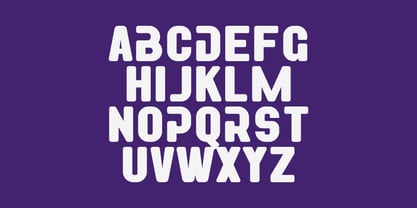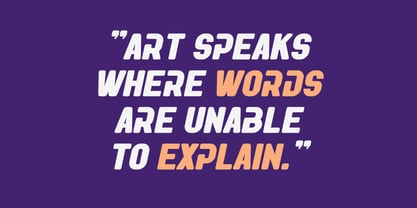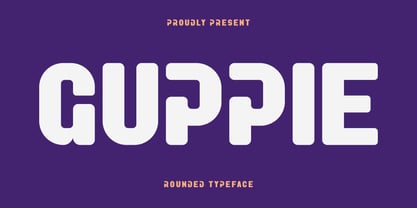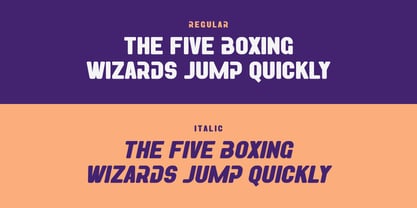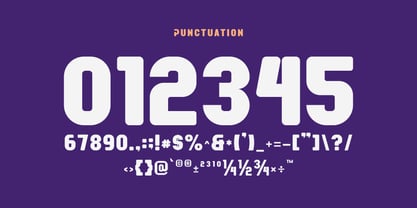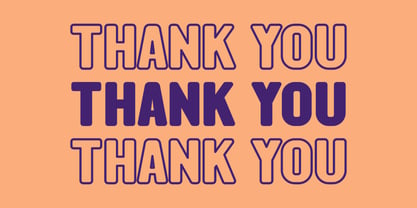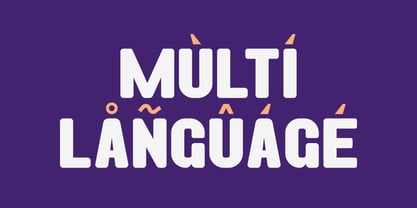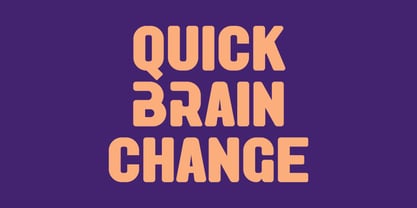
Guppie
by Artiveko
The Guppie Font Family was designed by Iwan Alwan and published by Artiveko. Guppie contains 2 styles and family package options. More about this family
Guppie is a rounded sans serif font full of friendly and modern vibes. Its soft curves and clean structure make it perfect for branding, children’s designs, apps, packaging, and creative projects. Equipped with multilingual support, ligatures, and alternates, Guppie brings a warm, approachable personality to any design with a playful yet professional touch.